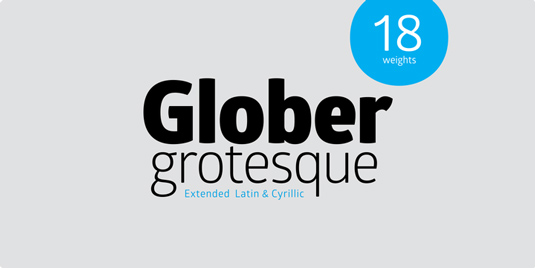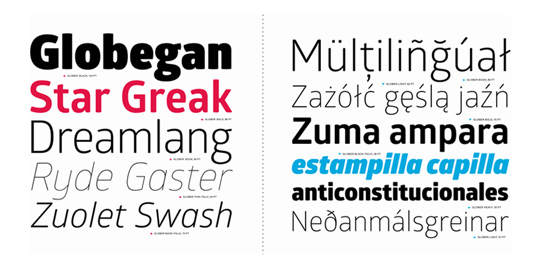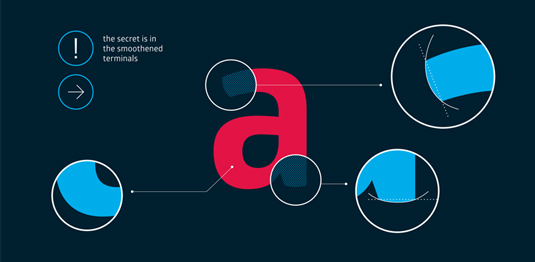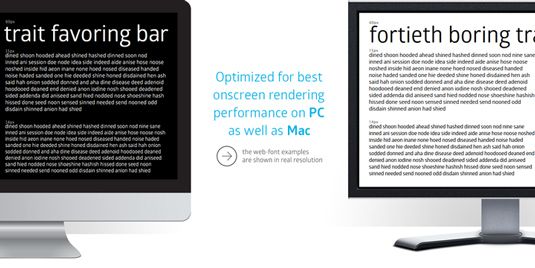
Font of the day: Glober
Every day we showcase the best fonts on the web. Today it's Glober by Ivan Petrov.
Glober by Ivan Petrov
Created by designer Ivan Petrov, our font of the day Glober was inspired by classic grotesque typefaces. Available from HypeforType, the design is described as having its "own unique style in expressed perfect softened geometric forms".